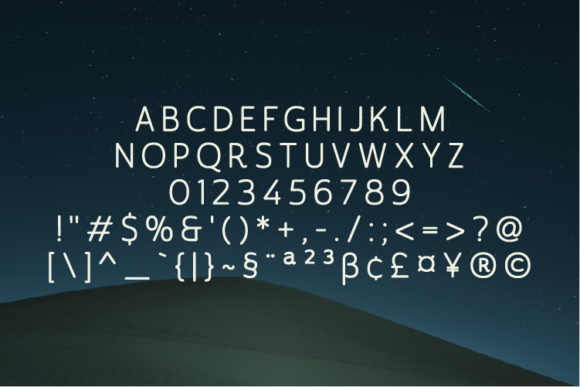
Designing with Personality
As creatives, we’ve all been there – staring at a blank canvas, trying to bring an idea to life. The perfect font can make all the difference, elevating your work from bland to grand. And that’s where the Argodame Medium Font comes in – a rounded sans serif that’s as friendly as it is expressive.
With its soft terminals and modern, contemporary style, the Argodame Medium Font is a versatile choice for designers looking to add a touch of personality to their work. Whether you’re crafting headlines, logotypes, or branding materials, this font is sure to make a statement. Its classic proportions and friendly vibe make it an excellent choice for books, magazines, motion graphics, and more.
Key Features of Argodame Medium Font
- Font Size: This font is designed to be highly legible at various font sizes, making it suitable for use in body text, headings, and titles.
- Unique Characteristics: The Argodame Medium Font features a clean and modern design with subtle rounded edges, giving it a friendly and approachable feel.
- Font Weight: This font is available in a single weight, Argodame Medium, which provides a balanced and versatile look suitable for a wide range of applications.
- Language Support: Argodame Medium Font supports a wide range of languages, including Latin, Cyrillic, and Greek scripts, making it a great choice for global brands and organizations.
Designer Review: Argodame Medium Font
Overall, I’m impressed with the Argodame Medium Font. It’s a well-designed sans-serif font that can add a touch of sophistication to any project. ✨ The font’s medium weight is perfect for body text, and it’s legible even at smaller font sizes.
- Legibility: The Argodame Medium Font is highly legible, making it perfect for long blocks of text.
- X-height: The x-height is well-balanced, making it easy to read.
- Consistency: The font’s design is consistent throughout, with no major inconsistencies in line spacing or character widths.
However, there are a few limitations:
- Lack of italic and bold versions: The font only comes in a single weight, which can be limiting for designers who need to emphasize certain text.
- No extensive language support: While the font supports a decent number of languages, it’s not comprehensive.
Overall, I’d give the Argodame Medium Font 4 out of 5 stars. While it’s a solid choice for body text, it falls short in terms of customization options and language support. ⚠️ With some additional weights and language support, this font could be a real game-changer.
Getting the Most Out of Argodame Medium Font
For best results, use Argodame Medium Font in combination with clean and minimalist designs. This font works well for headings and titles, and it’s also suitable for body text when used in conjunction with a clear and readable font.
Argodame Medium Font is suitable for a variety of use cases, including:
– Titles and headings
– Body text in minimalist designs
– Digital products and interfaces